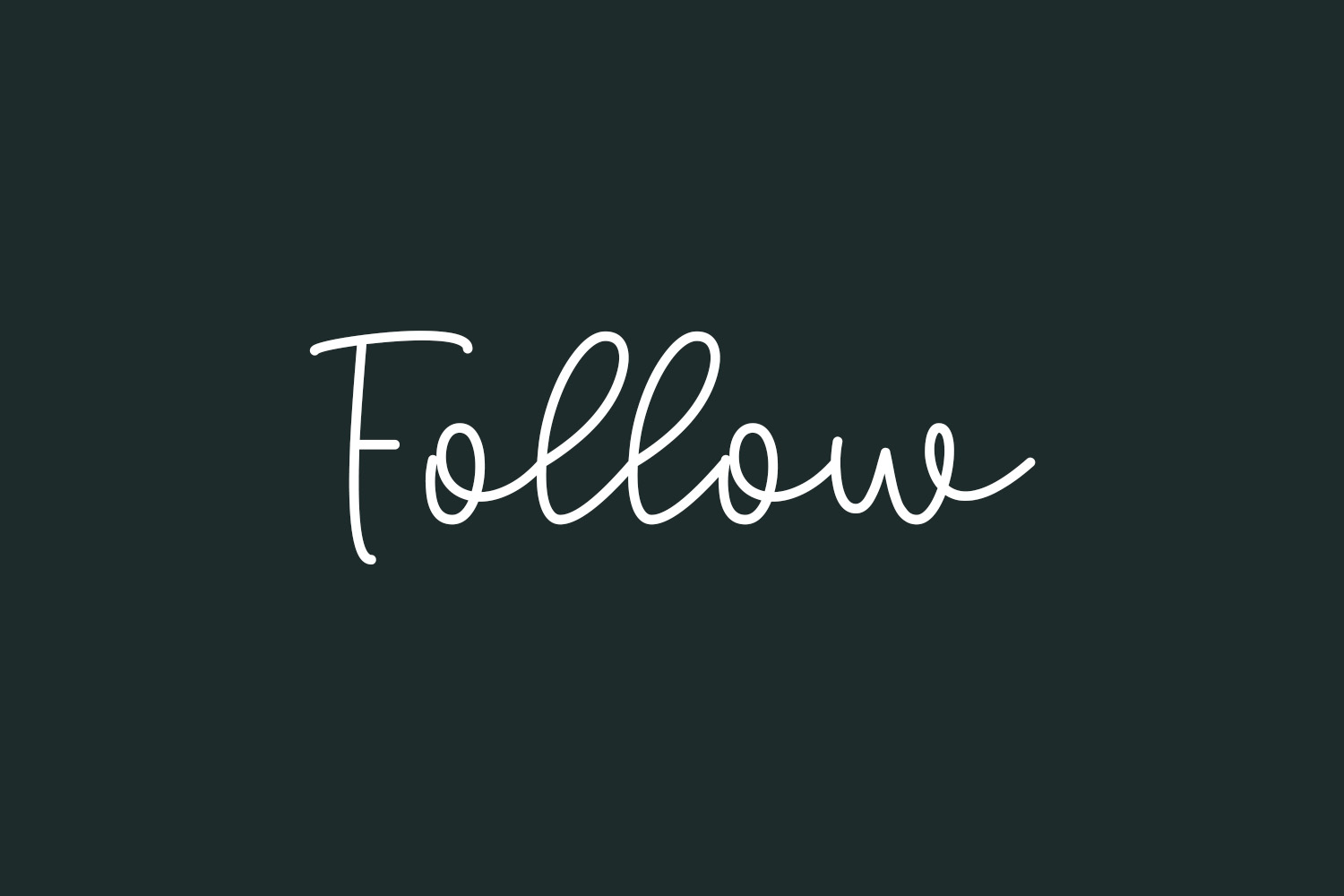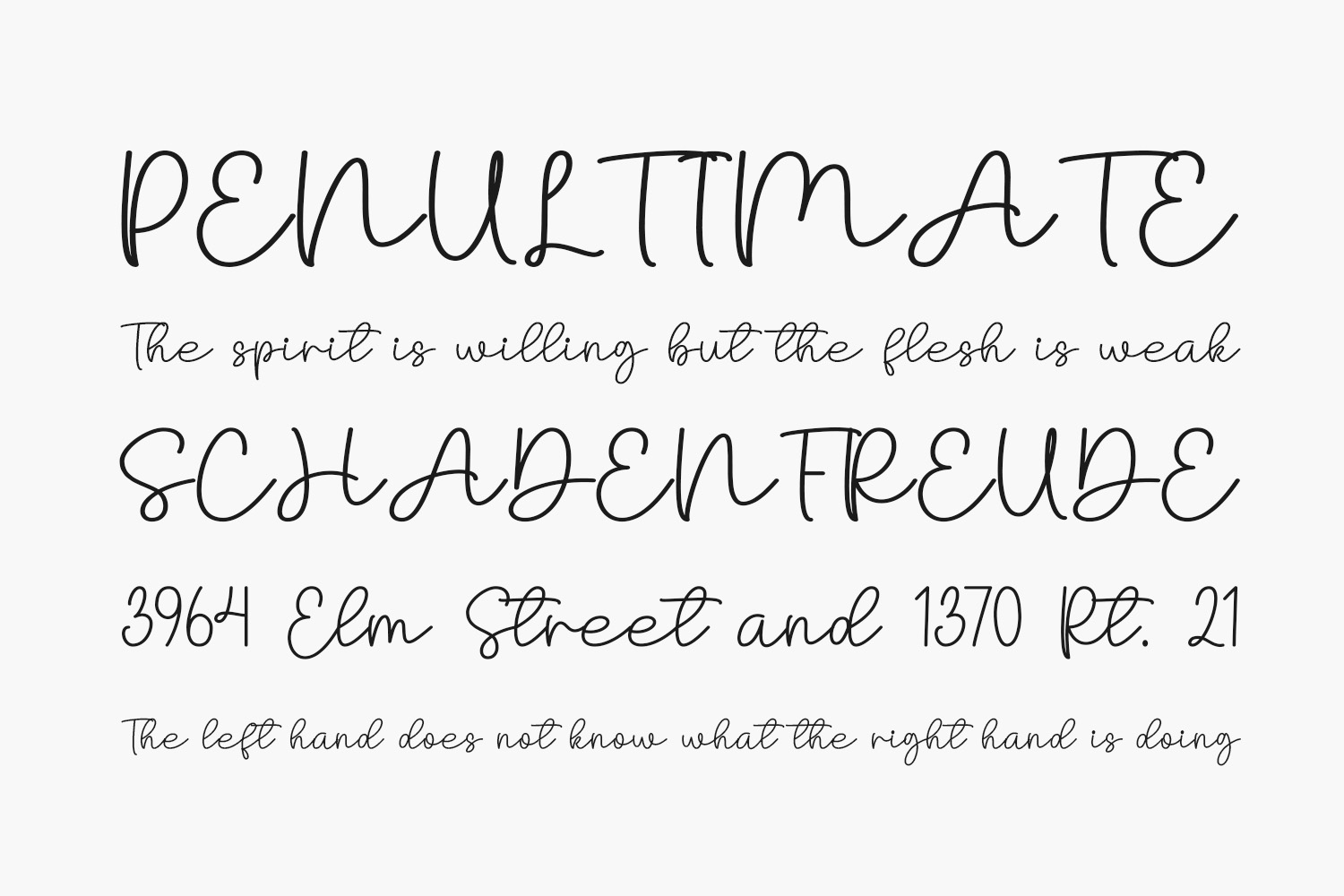
Embrace the charm of Follow Free Font, a delightful duo font featuring both display and script styles. Let its enchanting sweetness captivate you as you craft magnificent designs that truly stand out. Follow Free Font is free for personal use only. Please purchase the full version for commercial use.